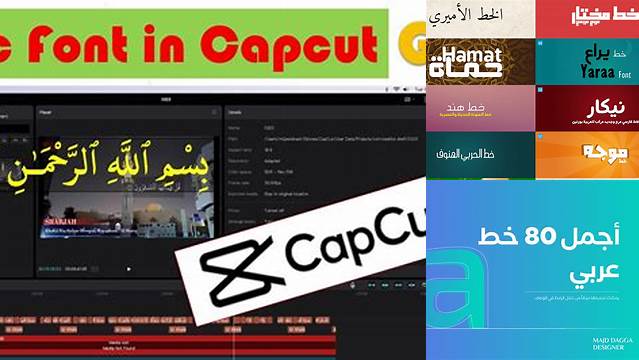
Best Free Arabic Fonts For CapCut: Download Now!
Hey guys! If you're looking to spice up your CapCut videos with some awesome Arabic fonts, you've come to the right place. Finding the perfect font can really elevate your project, adding that special touch of authenticity and flair. Let’s dive into the world of Arabic fonts and how you can download them for free to use in CapCut.
1. Why Use Arabic Fonts in CapCut?
Using Arabic fonts in CapCut can significantly enhance the visual appeal and cultural relevance of your videos. Whether you're creating content related to the Middle East, Islamic culture, or simply want to add a unique stylistic element, the right font can make all the difference. Arabic fonts bring an authenticity that generic fonts simply can’t match. They add depth and character, making your videos more engaging and professional. Moreover, incorporating Arabic fonts can help you connect with a wider audience, especially those who appreciate and understand the beauty of the Arabic script. So, if you're aiming for a polished, culturally rich look, Arabic fonts are definitely the way to go.
They can also help bridge cultural gaps and promote understanding. For example, if you're creating educational content about Arabic history or language, using appropriate Arabic fonts will not only make the information more accessible but also show respect for the culture. This attention to detail can greatly enhance your credibility and the overall impact of your video. Plus, with so many free Arabic fonts available, there's no reason not to experiment and find the perfect fit for your project. The possibilities are endless, and the results can be truly stunning.
Experiment with different font styles and sizes to see what works best for your project. Consider the background and overall theme of your video when choosing a font. A bolder font might be suitable for titles and headings, while a more delicate font could be ideal for subtitles or body text. CapCut also offers various text effects and animations that can further enhance the visual impact of your Arabic fonts. By exploring these features, you can create truly captivating and professional-looking videos. And don't forget, guys, practice makes perfect! So keep experimenting and have fun with your new Arabic fonts.
5. Understanding Arabic Font Styles
Understanding different Arabic font styles is key to making the right choice for your project. There are several main categories, each with its own unique characteristics. Kufic is one of the oldest Arabic scripts, known for its angular and geometric forms, often used in historical and religious contexts. Naskh is a more rounded and legible script, commonly used in books and newspapers. Thuluth is a decorative script characterized by its curved lines and elaborate flourishes, often seen in architectural inscriptions and calligraphy. Diwani is a calligraphic style known for its elegant and flowing forms, frequently used in official documents and artistic compositions. By familiarizing yourself with these styles, you can select the font that best conveys the tone and message of your video.